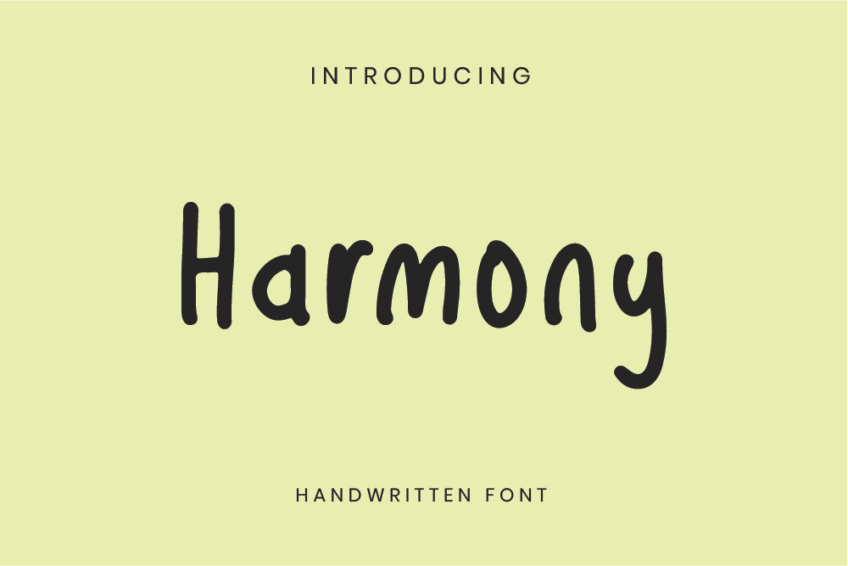
Harmony HF
Elevate your brand identity with Harmony Handwritten Font, a handwriting font logo designed to bring a sense of balance and elegance to your logo designs. Each letter is meticulously crafted to create a seamless flow, allowing Harmony to capture the essence of handwritten elegance.
Whether you’re crafting a logo for a luxury brand, boutique business, or personal venture, Harmony Handwritten Font ensures that your logo radiates sophistication and uniqueness.